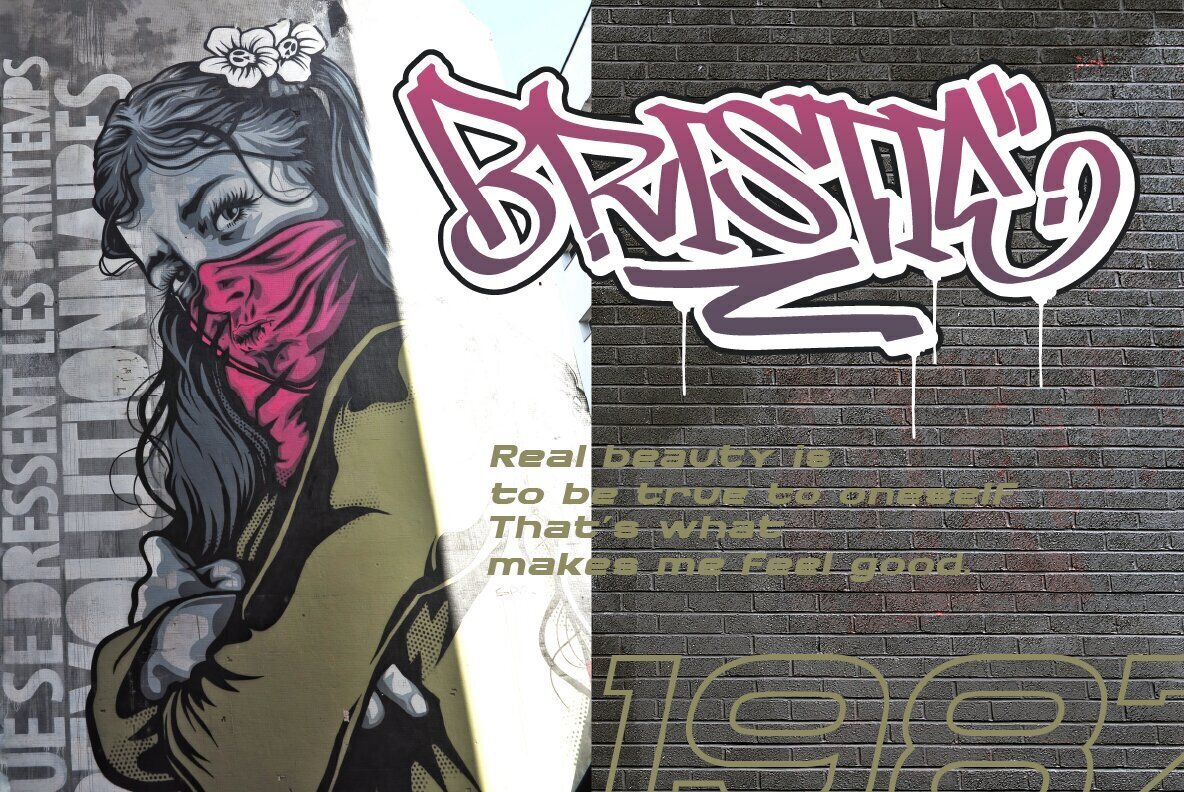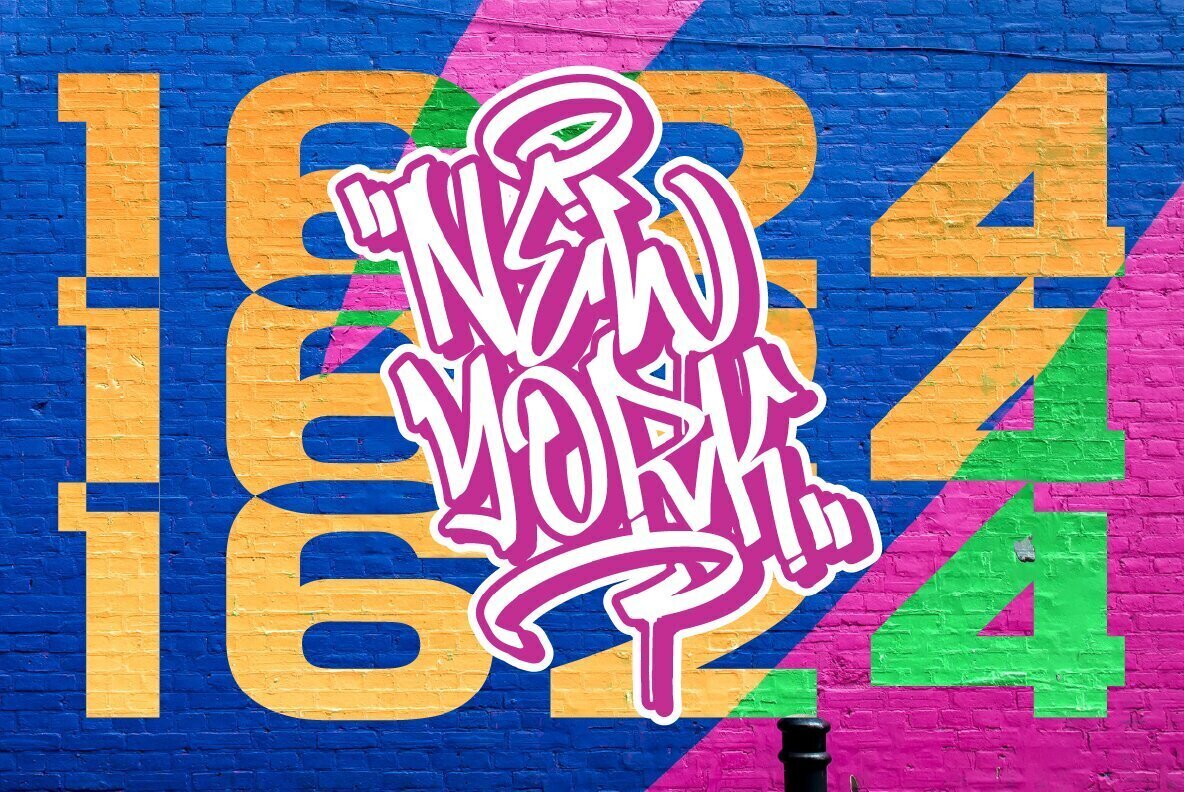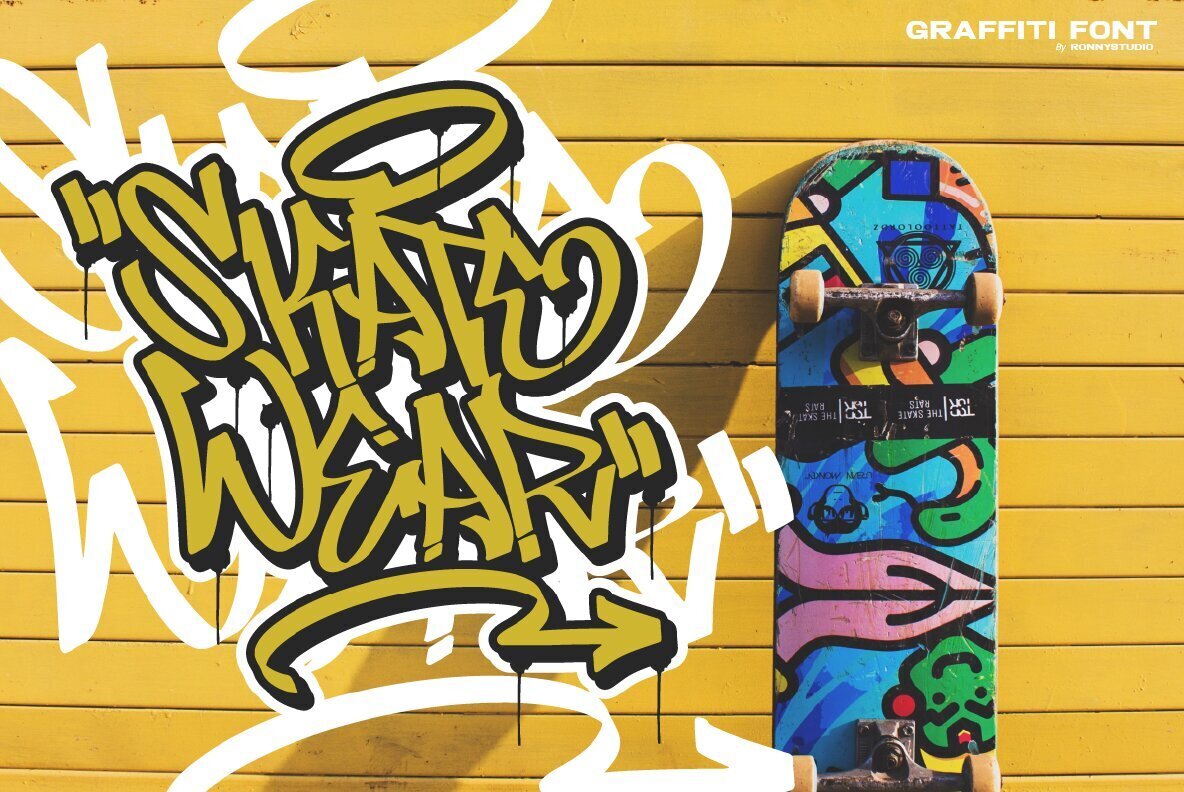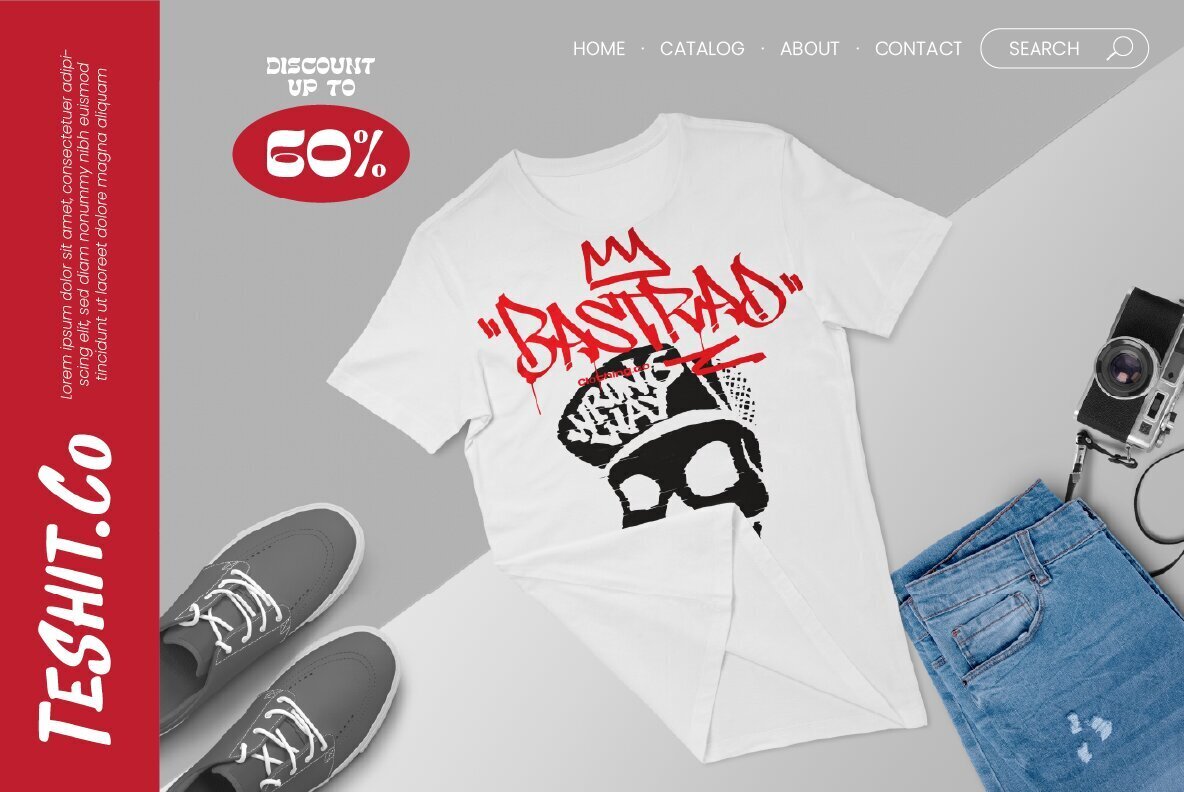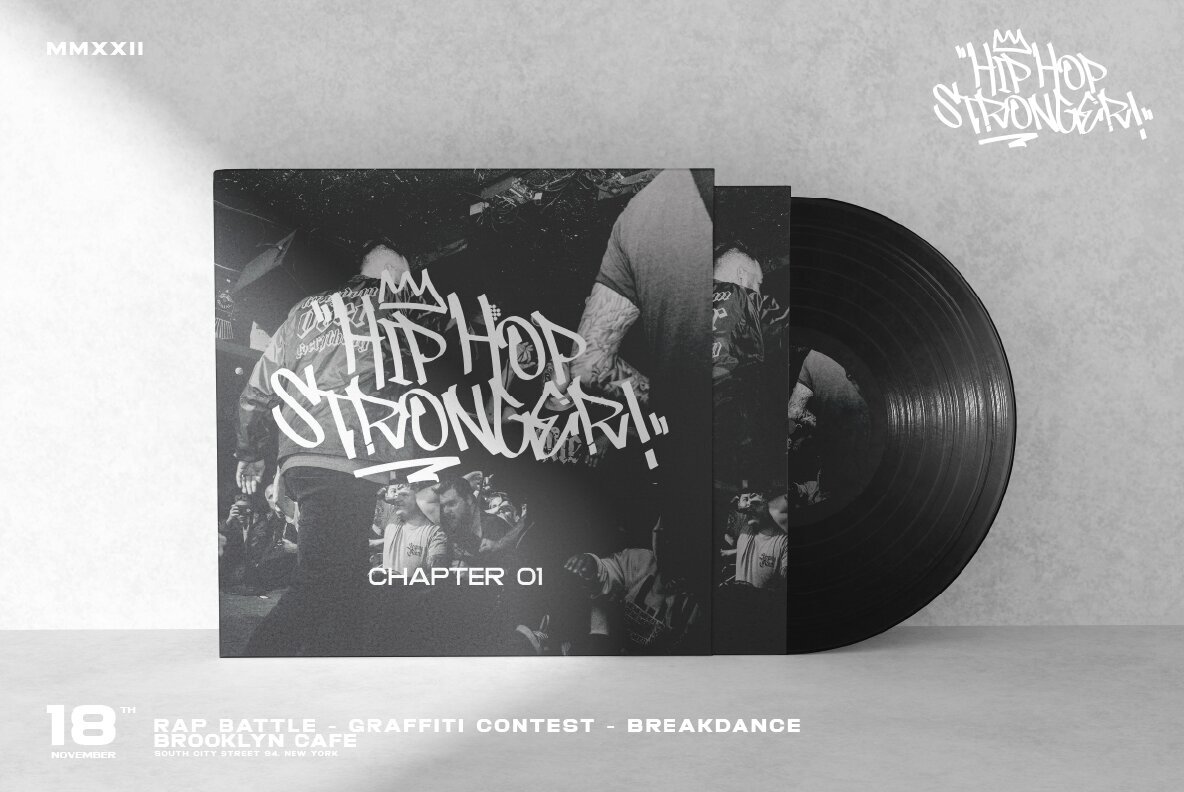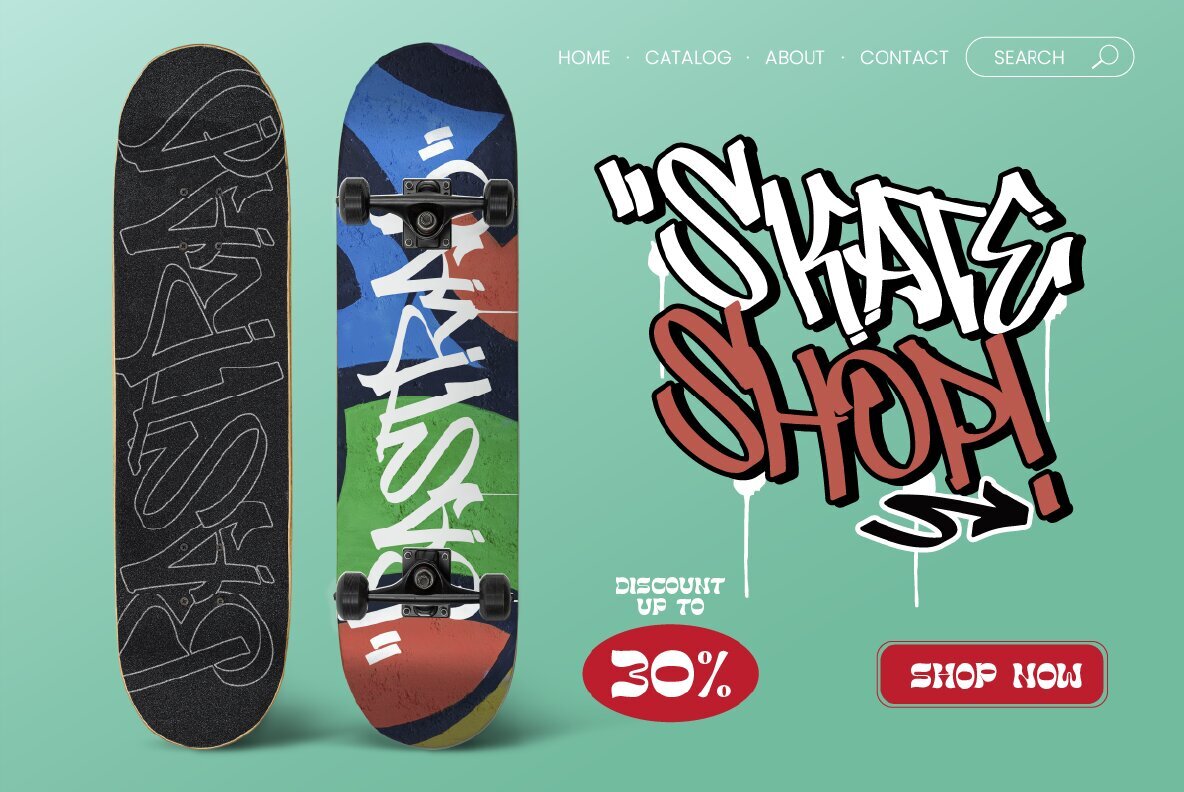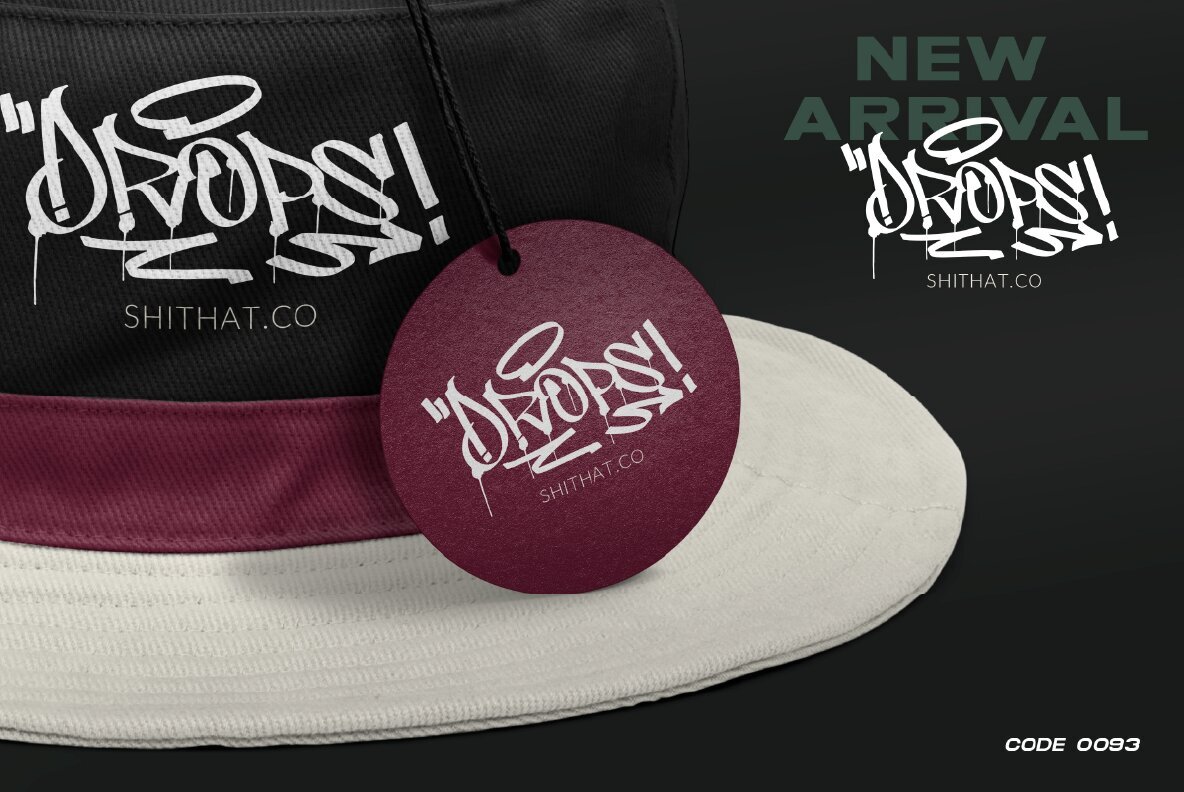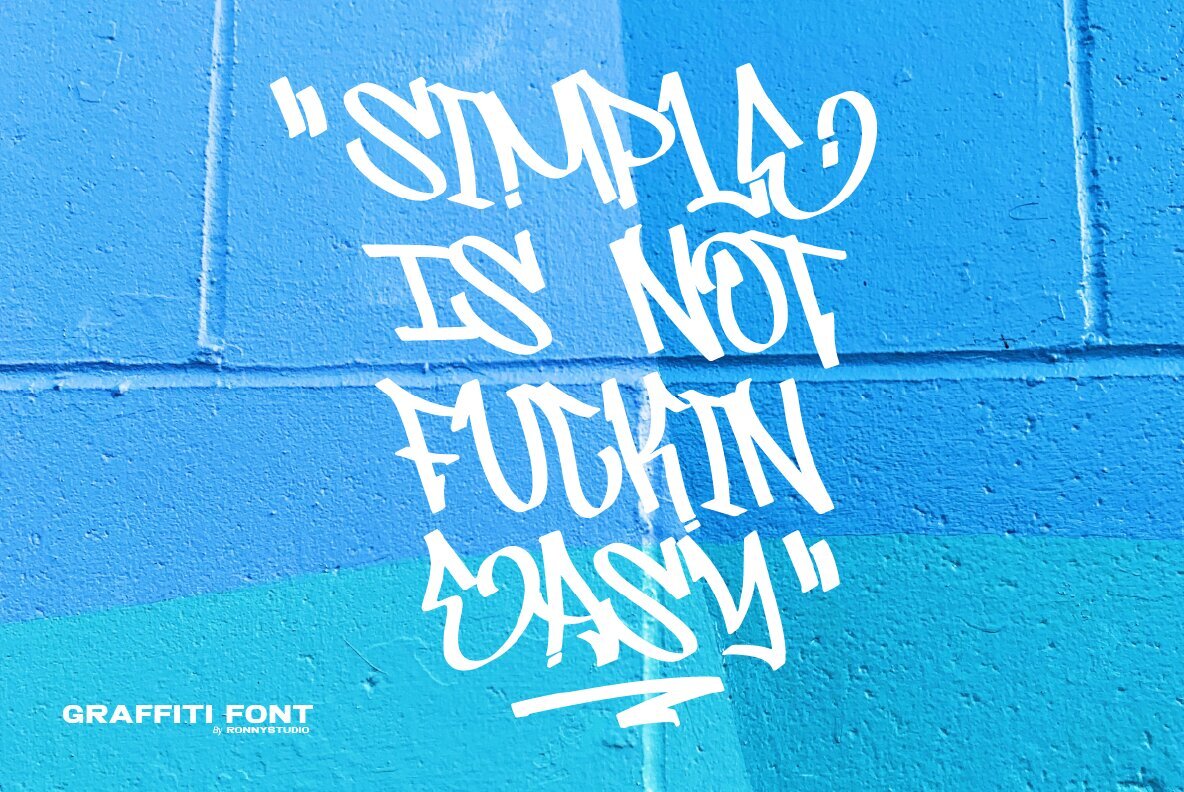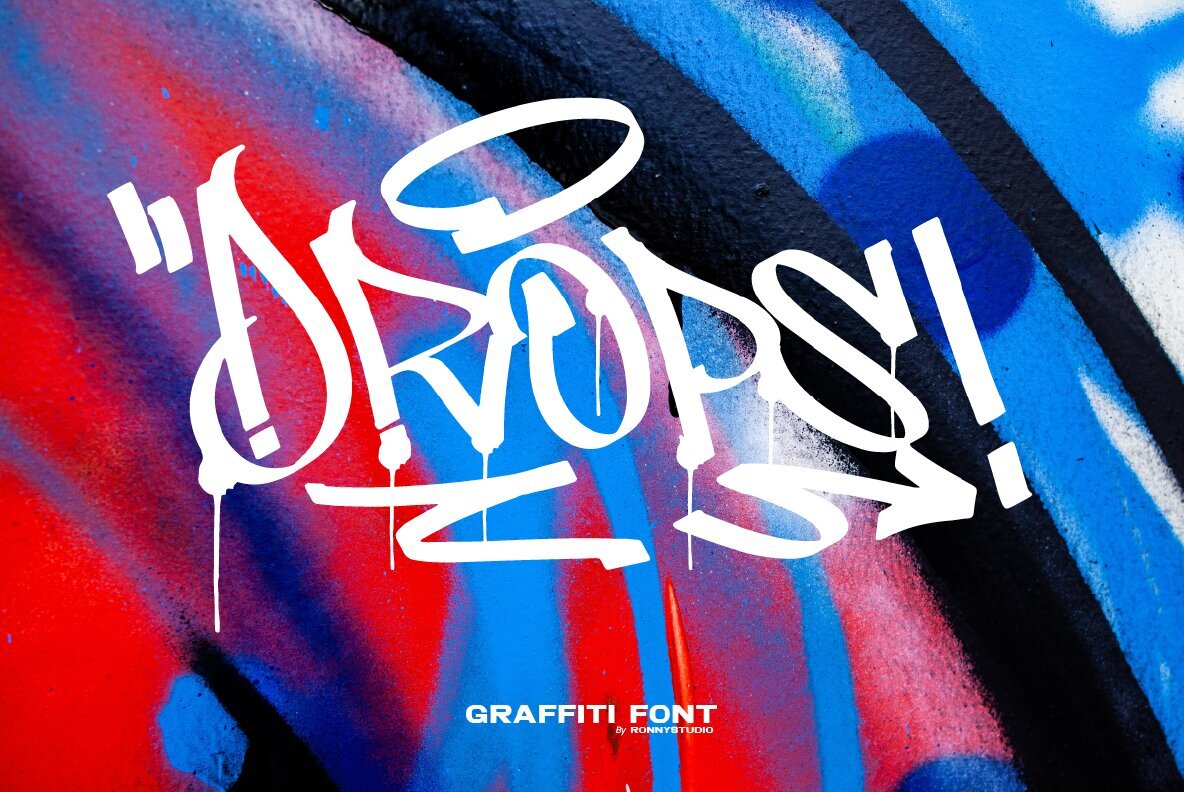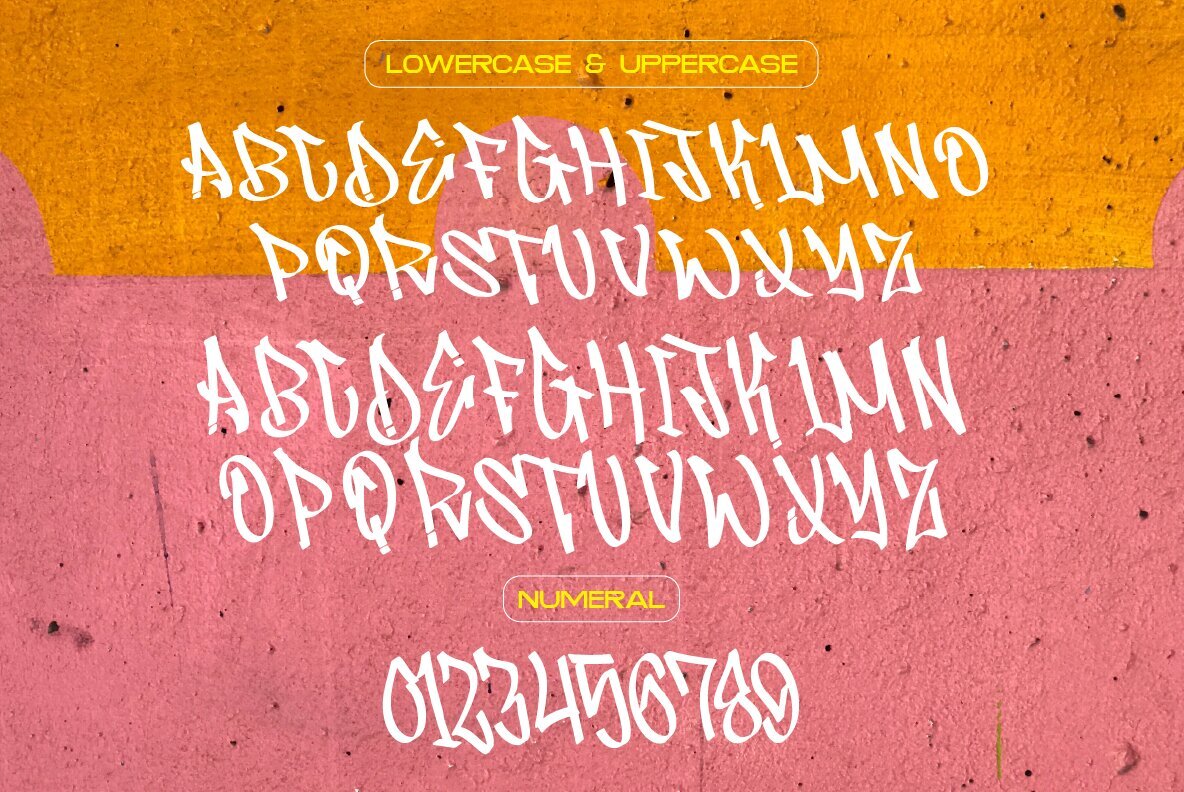
Bastrad Font
Bastrad Regular
Bastrad Swash
Bastrad Vol.1 is the first version of the Bastrad font. Inspired by the realistic calligraphy marking style in many big cities. This style is bolder and easier to read, perfect for your "street art" design style. I incorporate real graffiti experience into computer fonts, I think it will be different to other fonts if you can feel it, because I draw graffiti, mark and throw up since I was in high school.
Bastrad Features :
- All Caps
- Numbers & Punctuation
- Swash / Ornament